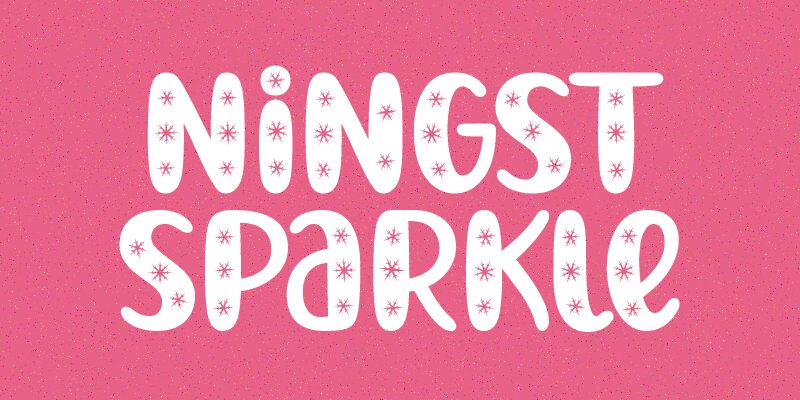
Introducing Ningst Sparkle - a bold, decorative display font created by Nista Ningsih Nazara and Situjuh Nazara. Perfect for projects that require an eye-catching, unique look, Ningst Sparkle is the ideal choice for logos, posters, invitations and more.